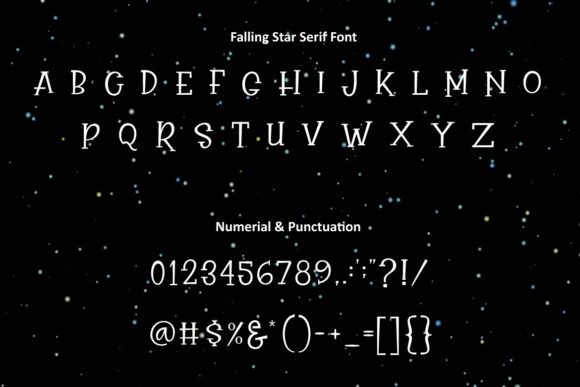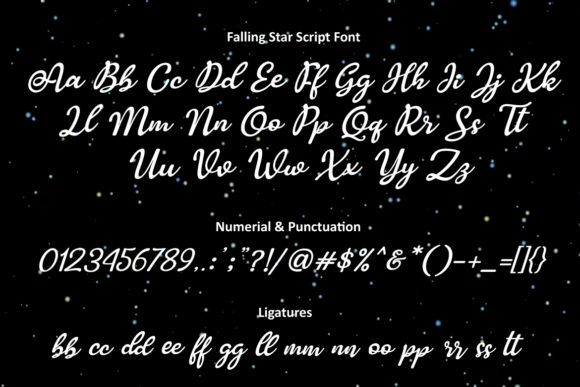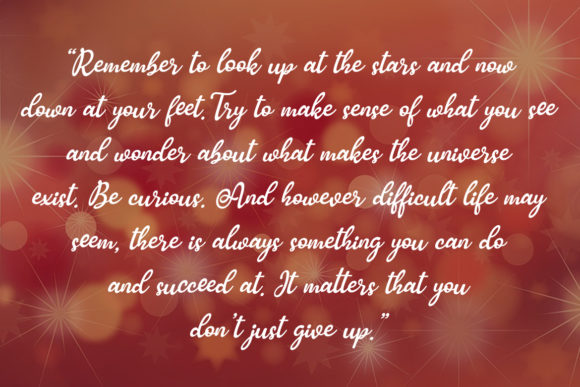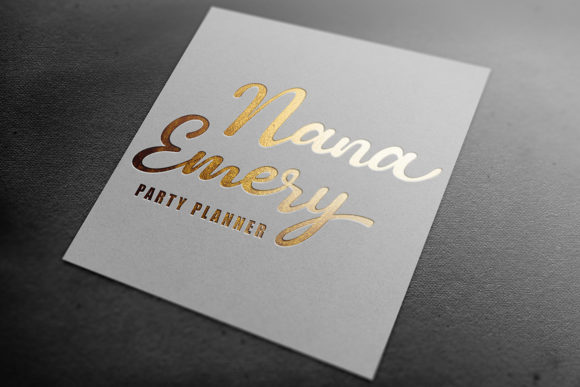
Freebie Wednesday: Falling Star Font Duo.
Falling Star Duo Font is a script font stunning and comprehensive font duo, perfect for giving your projects a branded but friendly feel and it’s free at Creative Fabrica for another 5 days so you better make sure you don’t miss out!